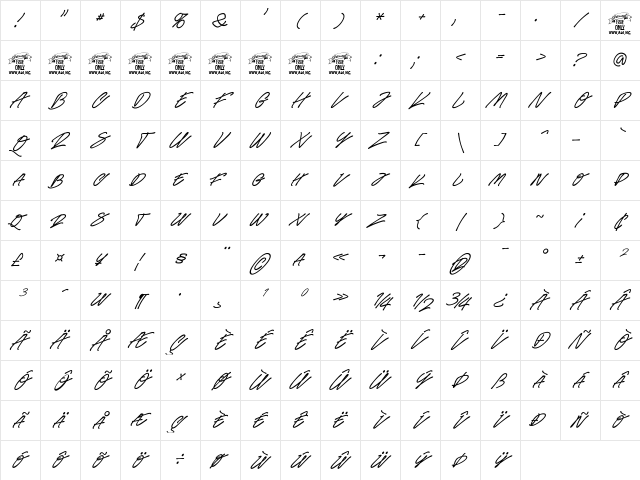
Race Fever Pen PERSONAL Regular
Designer: M￿ Greb￿
Design Context for Race Fever Pen PERSONAL
Race Fever Pen PERSONAL is a composed and adaptable typeface that performs quietly and consistently across a wide range of design contexts.
Who designed the Race Fever Pen PERSONAL Regular font?